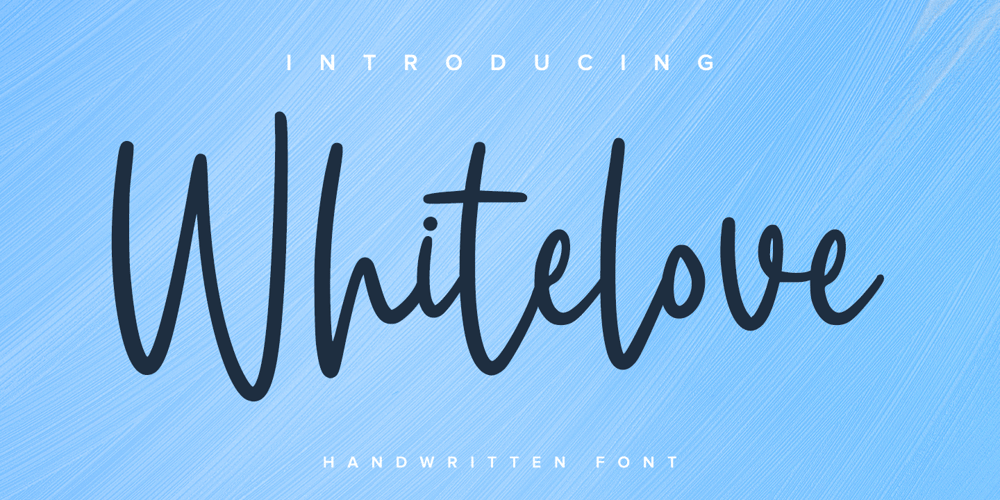
Whitelove Font Family was designed by Donis Miftahudin and published by Ditatype. Whitelove contains 1 styles and family package options. Whitelove is a modern handwritten font. With a classy and natural handwritten style, it brings a classy and chic typeface. Whitelove is best used for weddings, branding, logotype, and quotes.Includes: – Whitelove (OTF)Features: – Beautiful Ligatures – PUA Encoded – Multilingual Support – Numerals and Punctuation